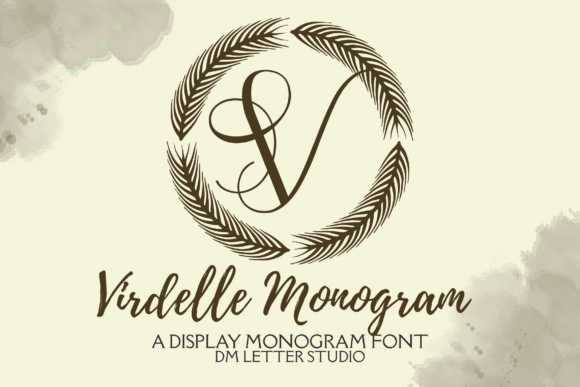
Virentia Monogram: A Botanical Elegance for Branding
There’s something about the quiet moment when you open a brand board and start sketching out a logo that feels like the beginning of a story. For me, it was a recent project for a boutique skincare brand looking to refresh their visual identity. I needed a font that would carry the essence of their clean, natural aesthetic while still standing out in a crowded market. That’s when I reached for Virentia Monogram.
A Font with Personality
Virentia Monogram is more than just a typeface—it’s a statement. With its botanical-inspired design, it brings a fresh, elegant touch to any branding project. The letters are clean, yet they carry a subtle organic feel, as if they’ve been hand-drawn but refined with precision. Each stroke is smooth and balanced, which makes the font incredibly versatile. Whether you're using it on a logo or a product label, it maintains clarity and charm without sacrificing readability.
The font's design is reminiscent of nature—soft curves, delicate lines, and a sense of movement that feels both modern and timeless. It’s the kind of typeface that can elevate a simple initial into something memorable. This makes it particularly well-suited for monogramming, personal branding, or any project where initials play a key role in the visual identity.
Testing in Real Projects
I used Virentia Monogram in several areas of the skincare brand’s new identity. On the logo, it worked beautifully as a headline font, adding a touch of sophistication that aligned perfectly with the brand’s values. When I placed it on packaging mockups, it felt like the perfect accent, drawing attention without overpowering the design. Even on social media graphics, it maintained its elegance, making it ideal for Instagram headers and post captions.
One of my favorite moments came when I tested it on a business card. At first glance, it looked a bit too decorative, but once I scaled it down, the balance and clarity really shone through. It didn’t lose its character, even at smaller sizes, which is a rare quality in many decorative fonts. This versatility made it a strong contender for a wide range of applications.
Font Pairing and Design Flexibility
Virentia Monogram works best when paired with fonts that complement its organic style. A sleek sans serif like Montserrat or a classic serif like Georgia can help ground the design and provide contrast. For a more playful look, pairing it with a script or handwritten font could add warmth and personality.
When working on editorial layouts or web designs, I found that Virentia Monogram performed exceptionally well in headlines and short phrases. Its clean structure made it easy to read, even in digital formats. However, I wouldn’t recommend it for long body text or formal corporate use, where a more traditional font might be better suited.
It’s also worth noting that the font includes several alternates and ligatures, which can be useful for creating unique typographic effects. These features make it a great choice for designers who enjoy experimenting with typography and want to add a touch of individuality to their work.
Practical Considerations
Before committing to a font for client work, it’s always wise to test it in different contexts. I recommend placing Virentia Monogram on a variety of design assets—logos, packaging, social media posts, and print materials—to see how it performs in real-world scenarios. Pay close attention to how it looks at different sizes and in various color schemes.
Final Thoughts
Virentia Monogram is a font that feels both intentional and effortless. It brings a fresh, elegant energy to any project without being overly flashy. Whether you’re designing a logo, updating a brand board, or creating social media content, this typeface has the potential to make a lasting impression.
If you’re looking for a decorative font that balances style with functionality, Virentia Monogram is definitely worth considering. It’s not just a font—it’s a tool for storytelling, a way to express personality, and a means to create a cohesive brand identity that stands out in the world of design.